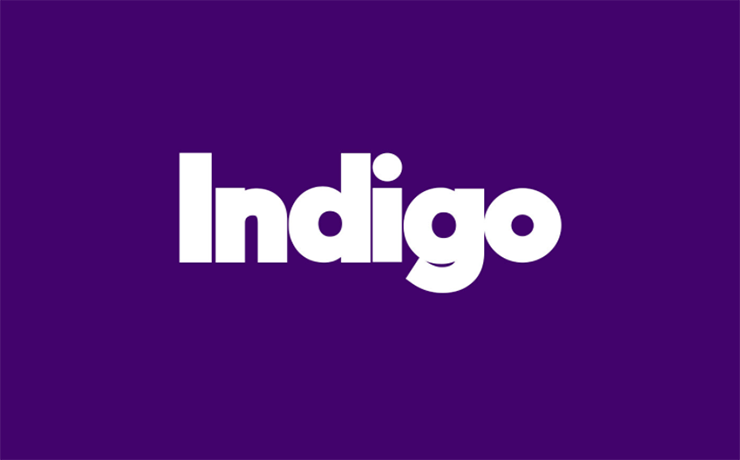
Indigo Font is beautifully designed and memorable. Check out this stylish, decorative font. It’s definitely the type of sans serif that really commands attention. Give this one a try today.
Salt & Pepper Designs A popular font foundry took charge of designing and launching it for the first time in 2018.
While creating it, the designer team considered having a typing fee that can be used for various tasks on print or screen. That way, they make it an amazing font.
The structure of this typeface is solid, with proper space between the letters, and the reason behind the bold shape of this typeface is just to maintain consistency.
Before proceeding, let’s look at the style of this typeface.
Due to its bold letters, this magnificent font can be used for movie posters, stickers, social media posters, flyers, fabric printing, unique logos, game titles, banners, game development, product packaging, and many more.
Indigo font has come with two different weights including Regular and Outline. On the other hand, the regular style has 322 glyphs and the Outline style has 332 glyphs.